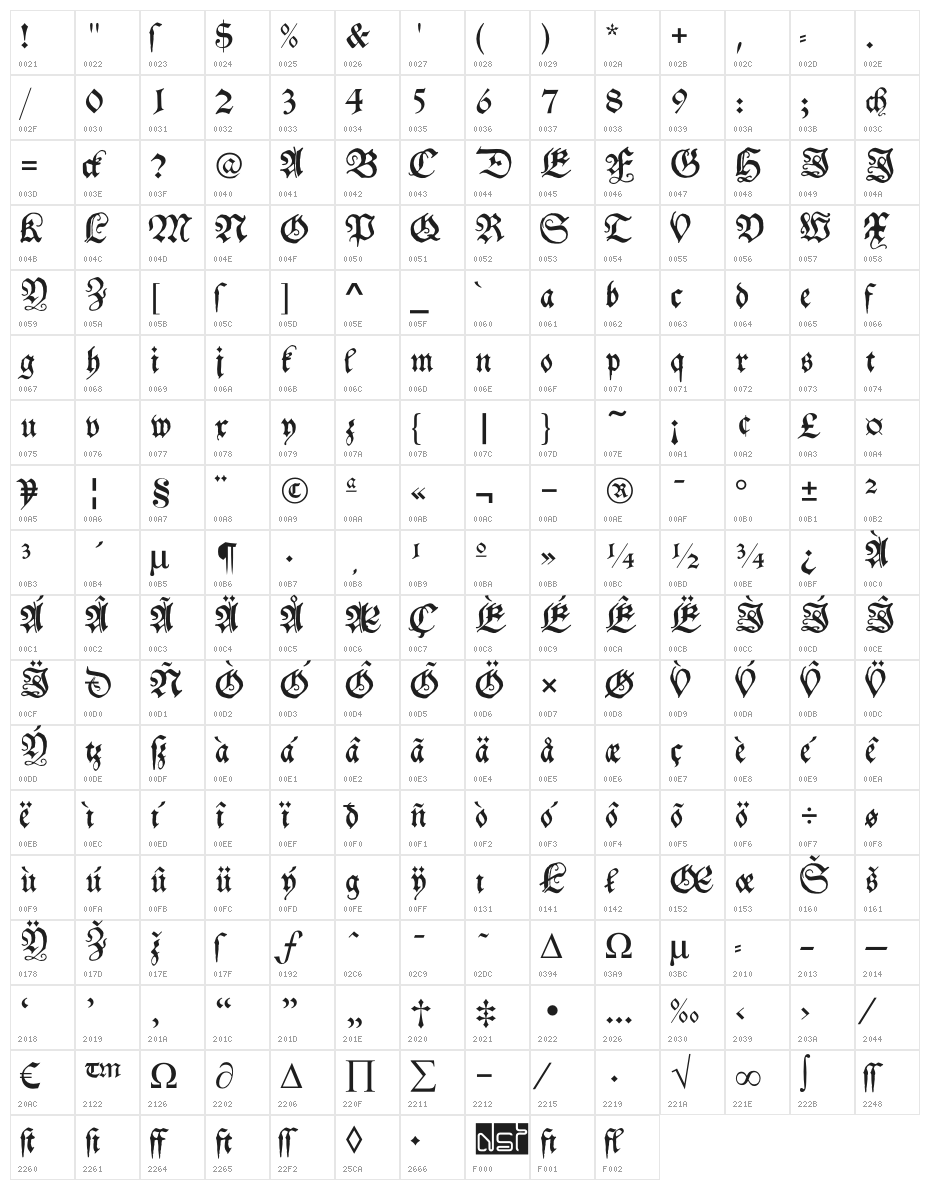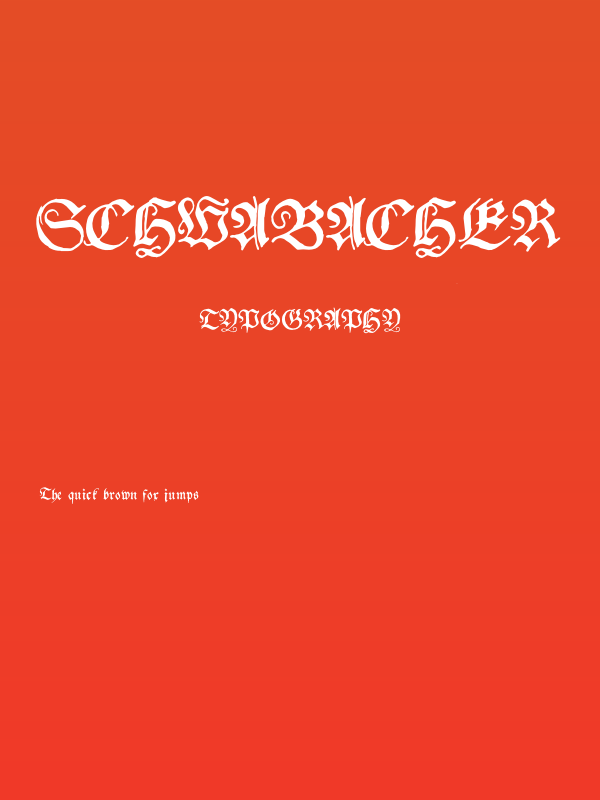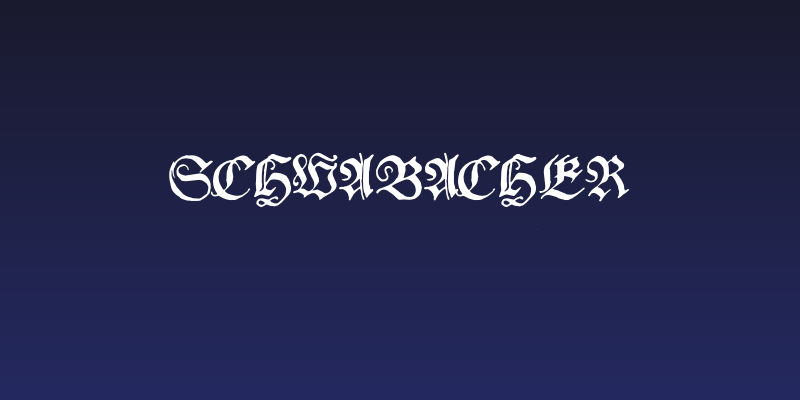
Schwabacher Font
Schwabacher Description
This font is a classic example of the Schwabacher style, characterized by its intricate and ornate letterforms. The uppercase letters exhibit a distinct flourish with sharp angles and curves, giving them a dramatic and historical appearance. The lowercase letters maintain a similar aesthetic, with a slightly more subdued flair, yet still retaining the decorative elements that define this style. The numerals are bold and consistent with the overall theme, featuring a strong presence and unique design. Special characters are equally ornate, integrating seamlessly with the rest of the font. This typeface is reminiscent of medieval script, often associated with historical documents and traditional German texts.
| Proposed Projects | Ideal for projects requiring a historical or medieval touch, such as book covers, posters, or themed event invitations. |